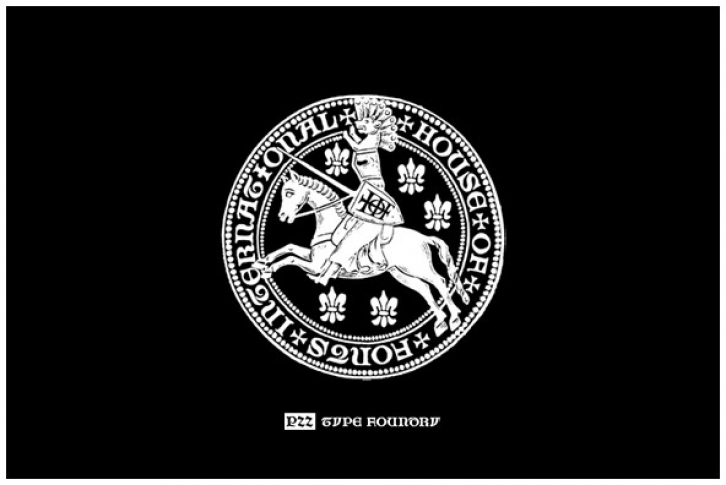
Originally offered by the Devinne Press in the early 1900s, the Numismatic typeface features the letters, Arabic figures and ornaments used by designers and engravers of seal, coins, medals and inscriptions upon metal or stone during the fifteenth and sixteenth centuries.